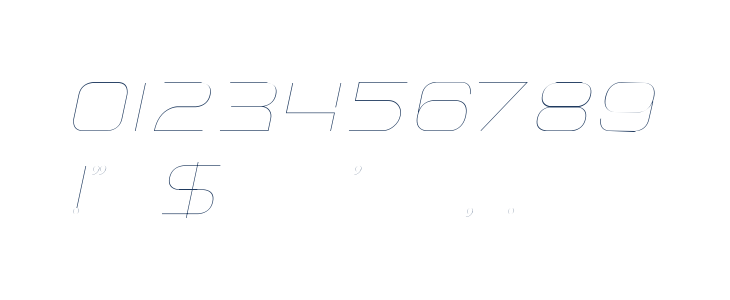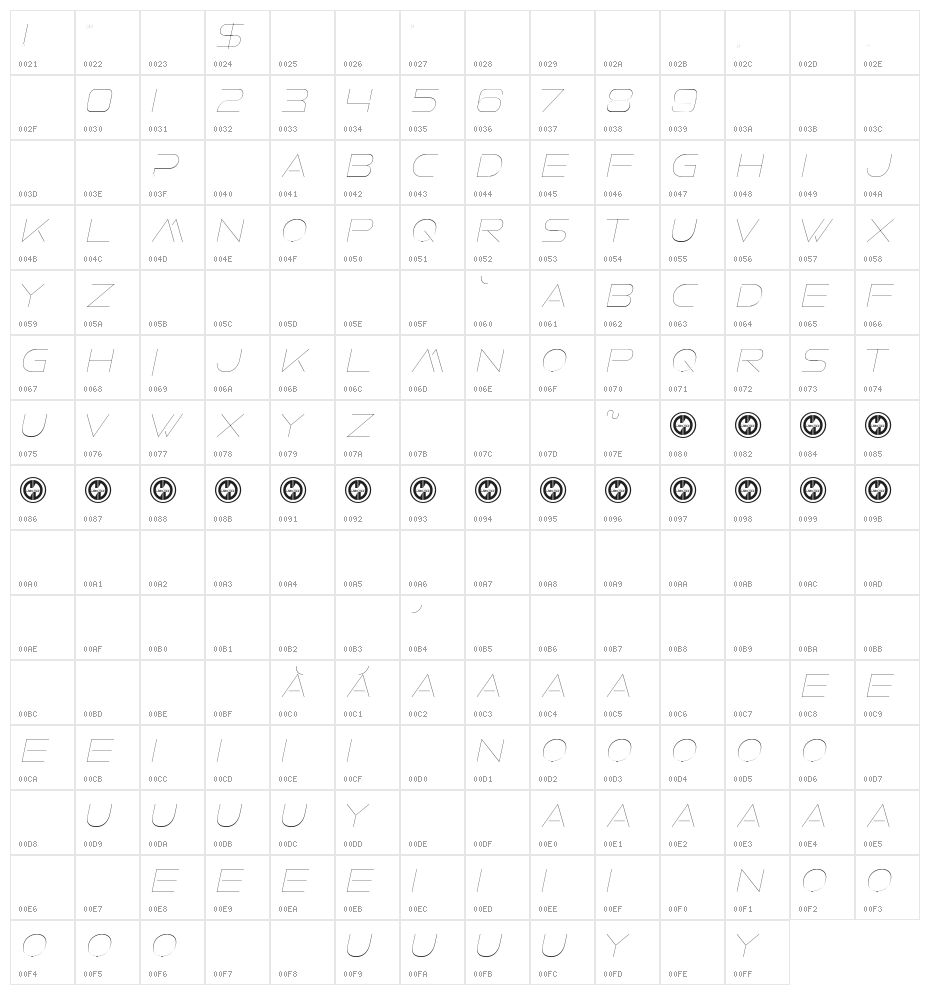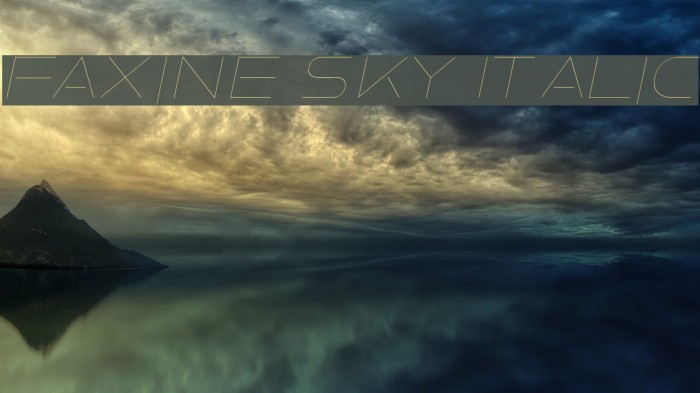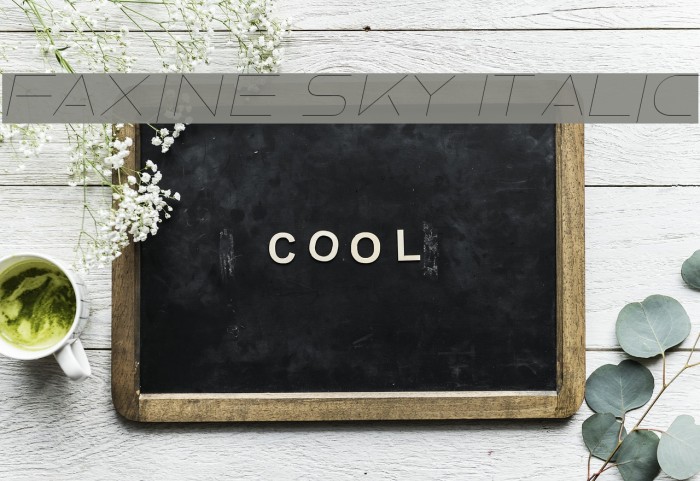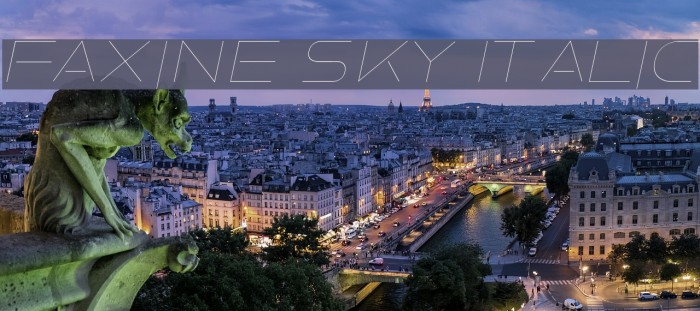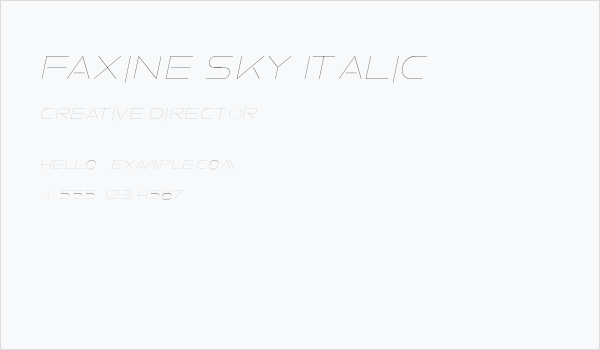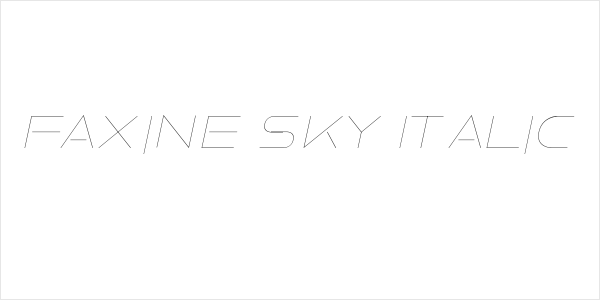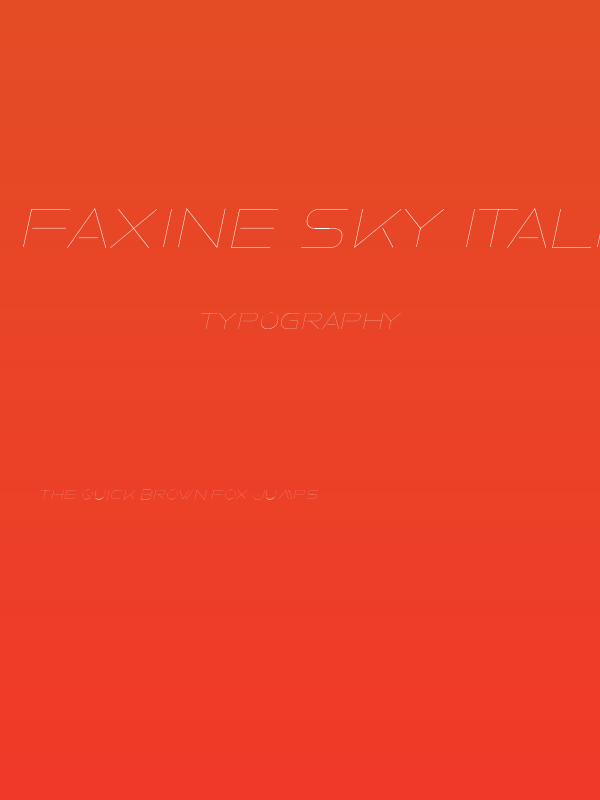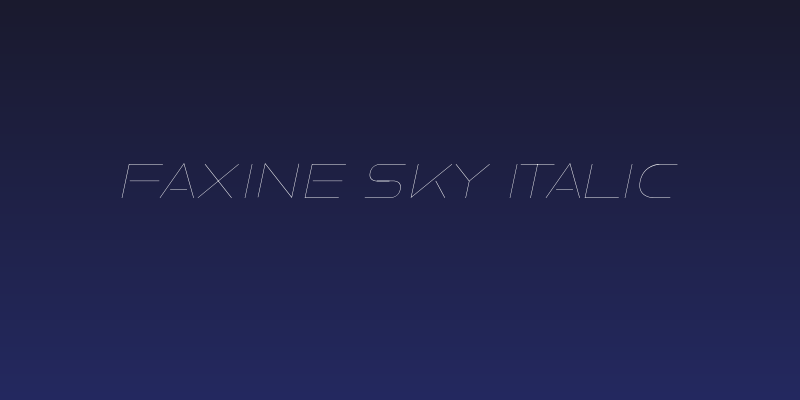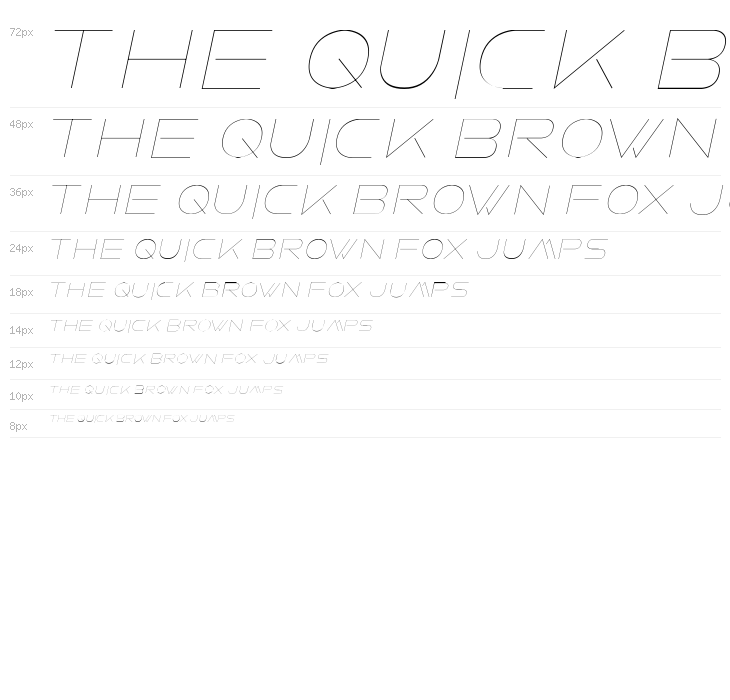
Faxine Sky Italic Font
Faxine Sky Italic Description
This font features a sleek, modern design with a futuristic flair. The characters are italicized, giving a sense of motion and dynamism. The strokes are thin and consistent, creating a clean and minimalist appearance. The geometric shapes of the letters contribute to a contemporary aesthetic, making it suitable for tech-related projects. The spacing between characters is wide, enhancing readability while maintaining a stylish look. This font is ideal for projects that require a modern and innovative touch.
| Proposed Projects | Ideal for tech branding, modern advertising, futuristic posters, and innovative product packaging. |